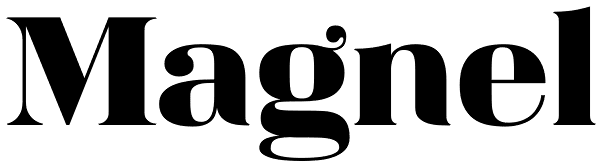
Magnel
A rare occasion – typeface from Lithuania. One year in the making, Magnel (previously called Magnola) is designed for headlines, posters and big sizes. Besides most Latin alphabet languages, it packs dozens of (accented) ligatures and every single...